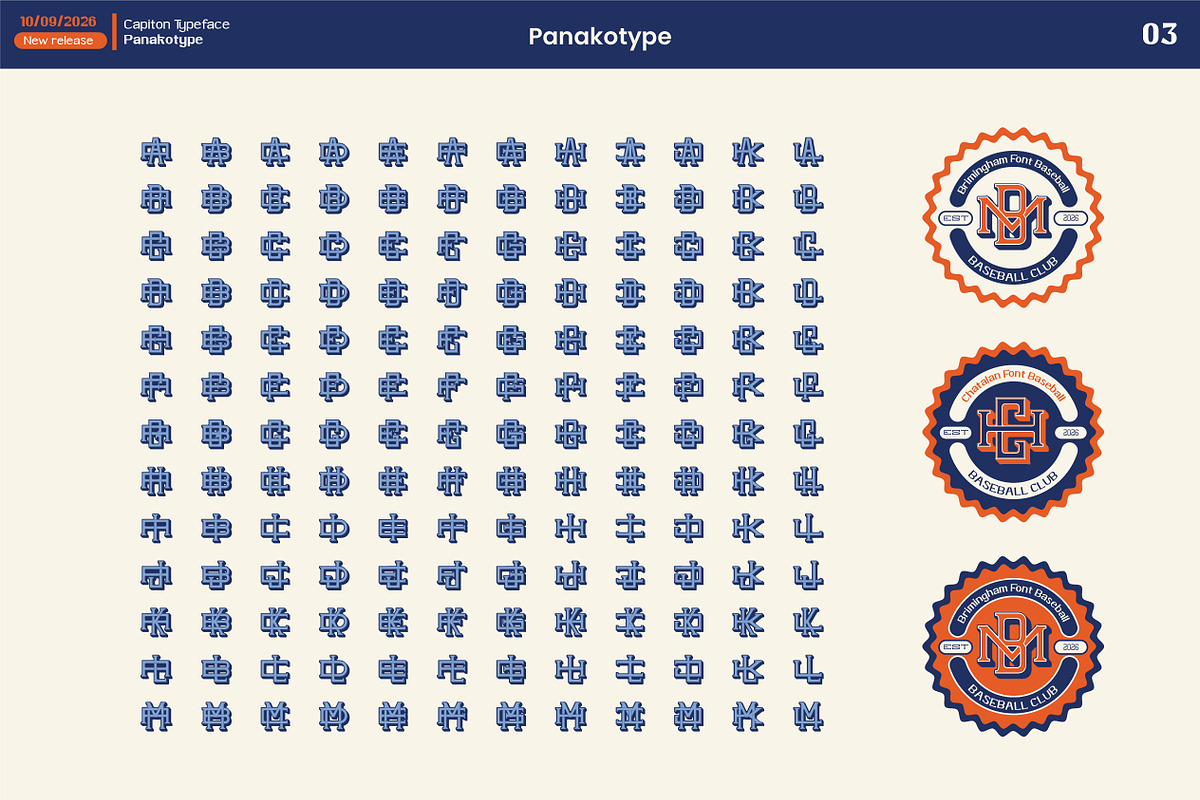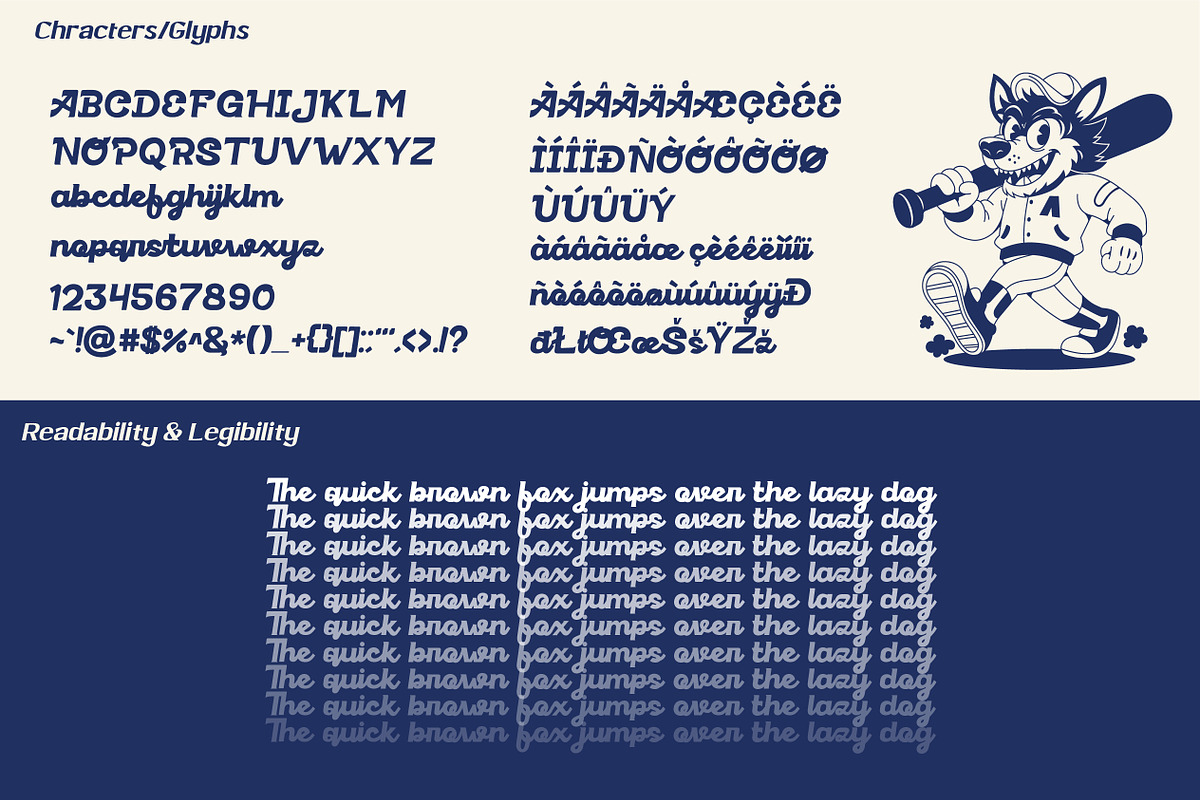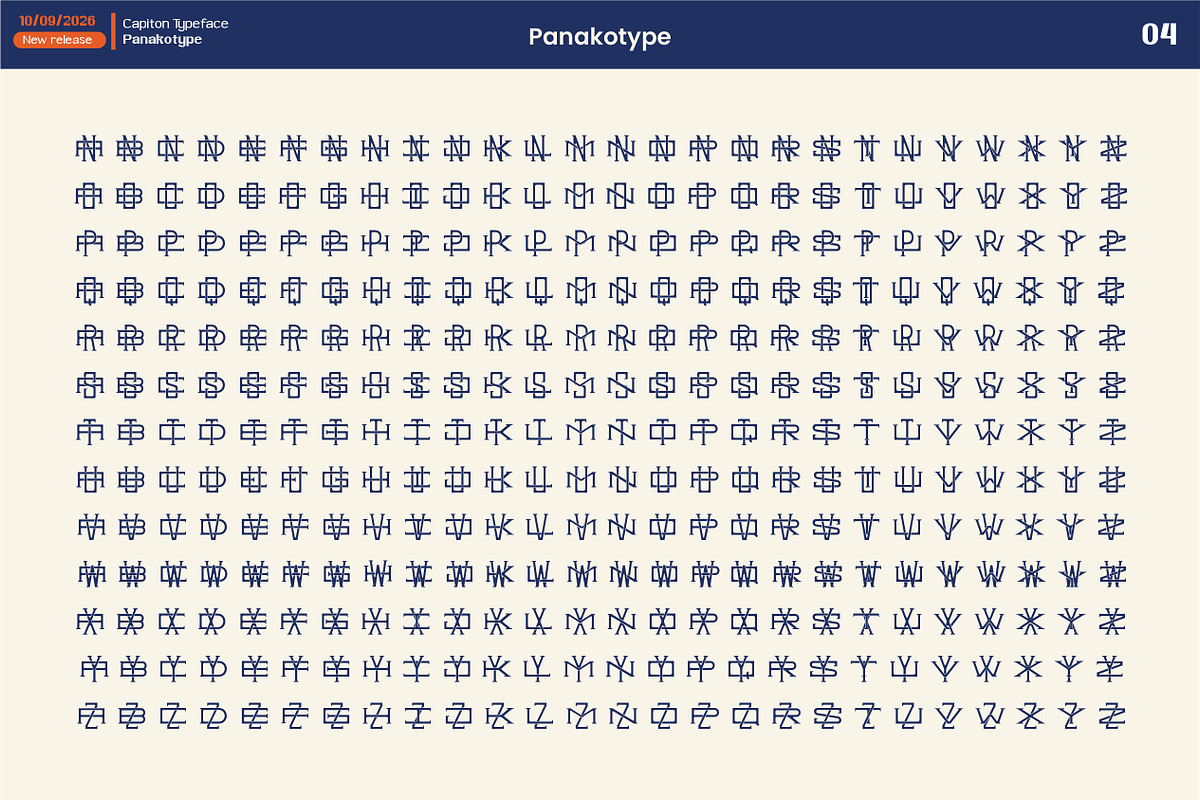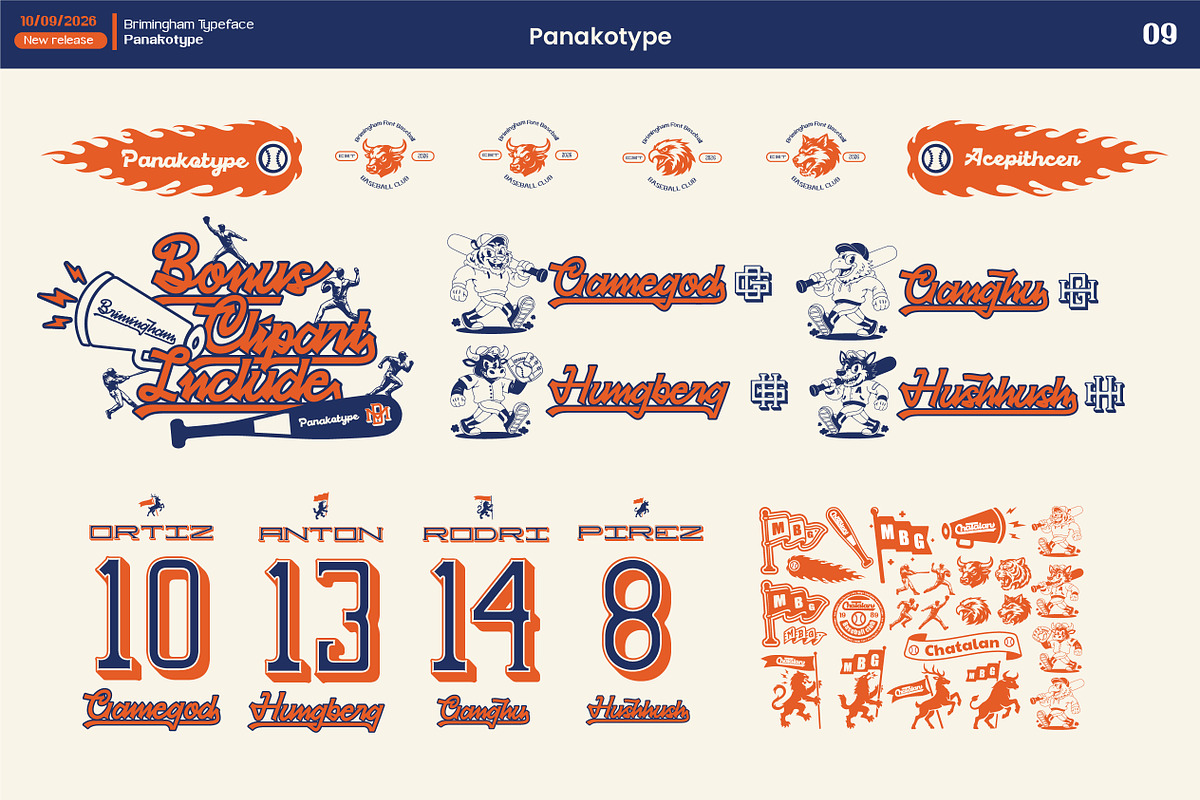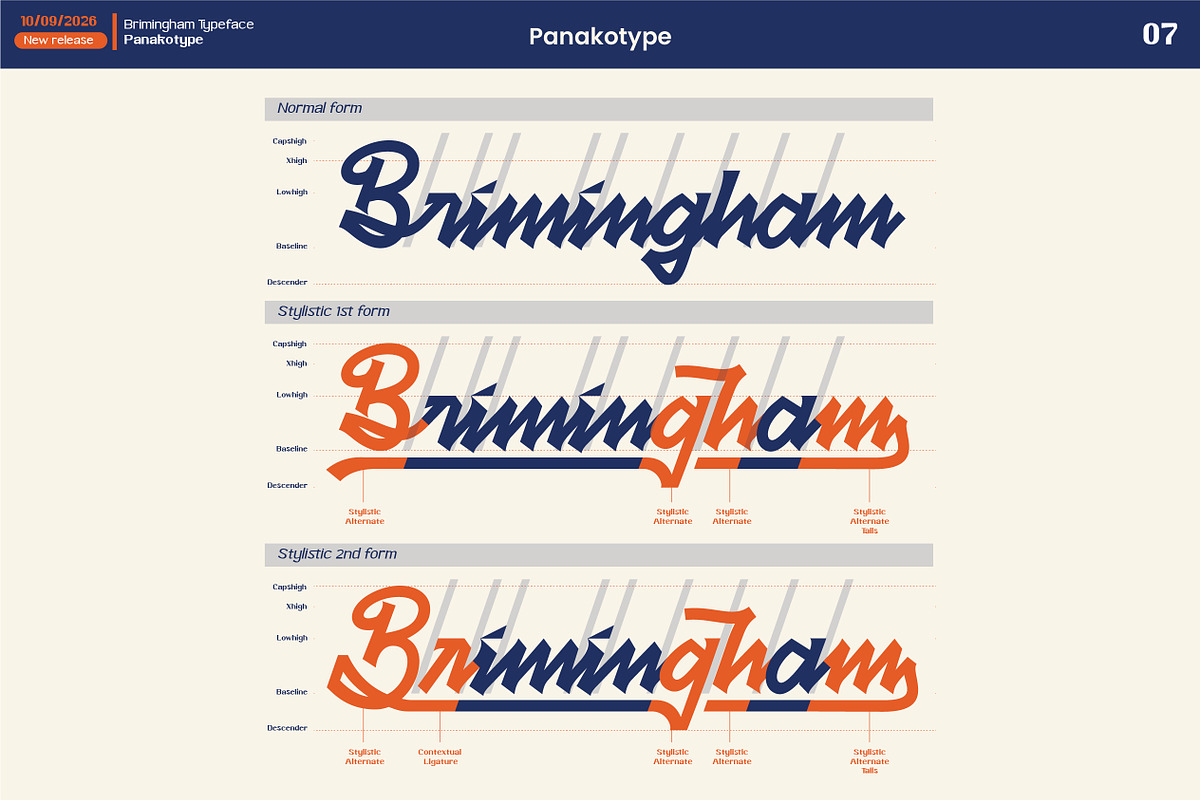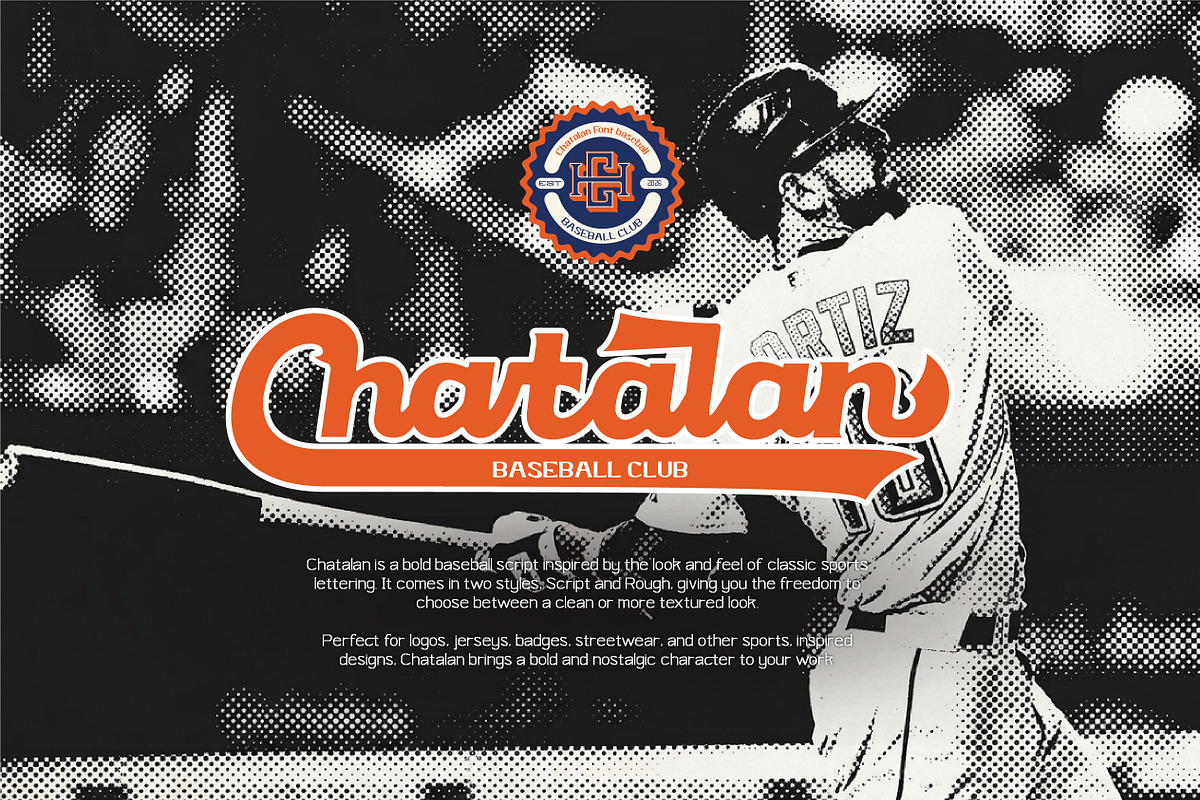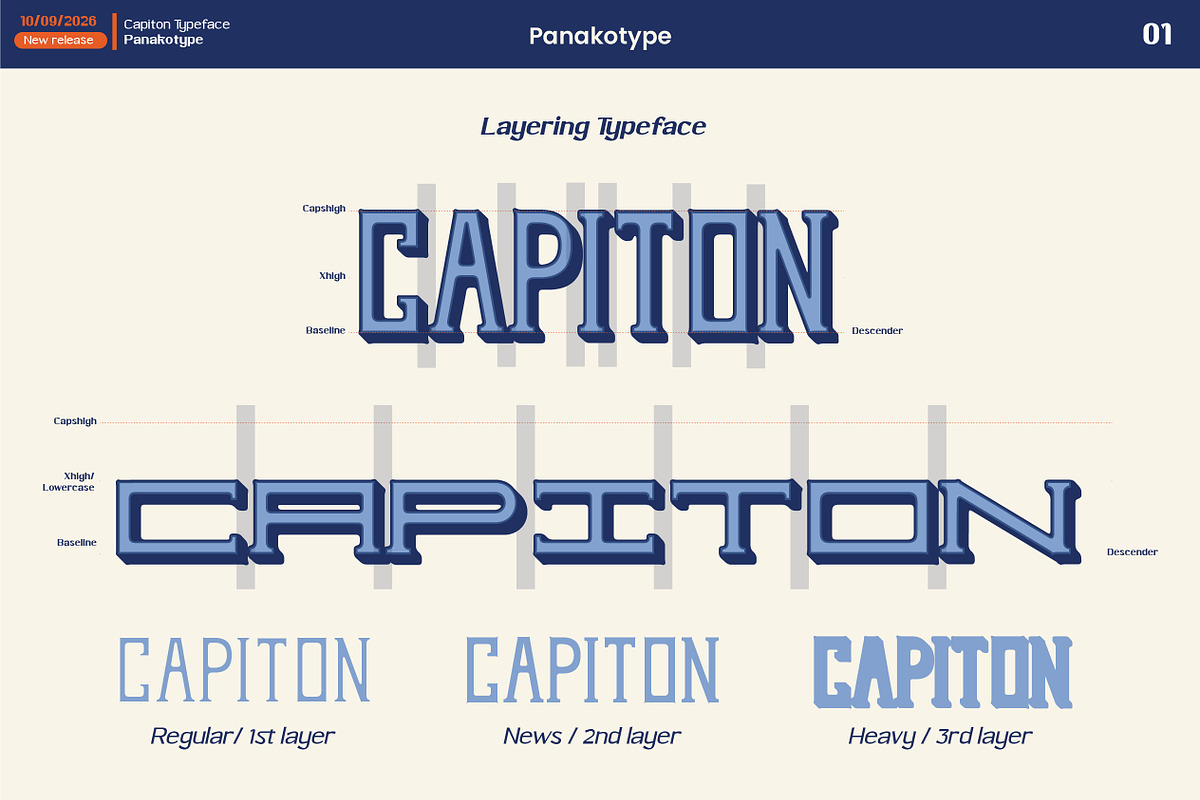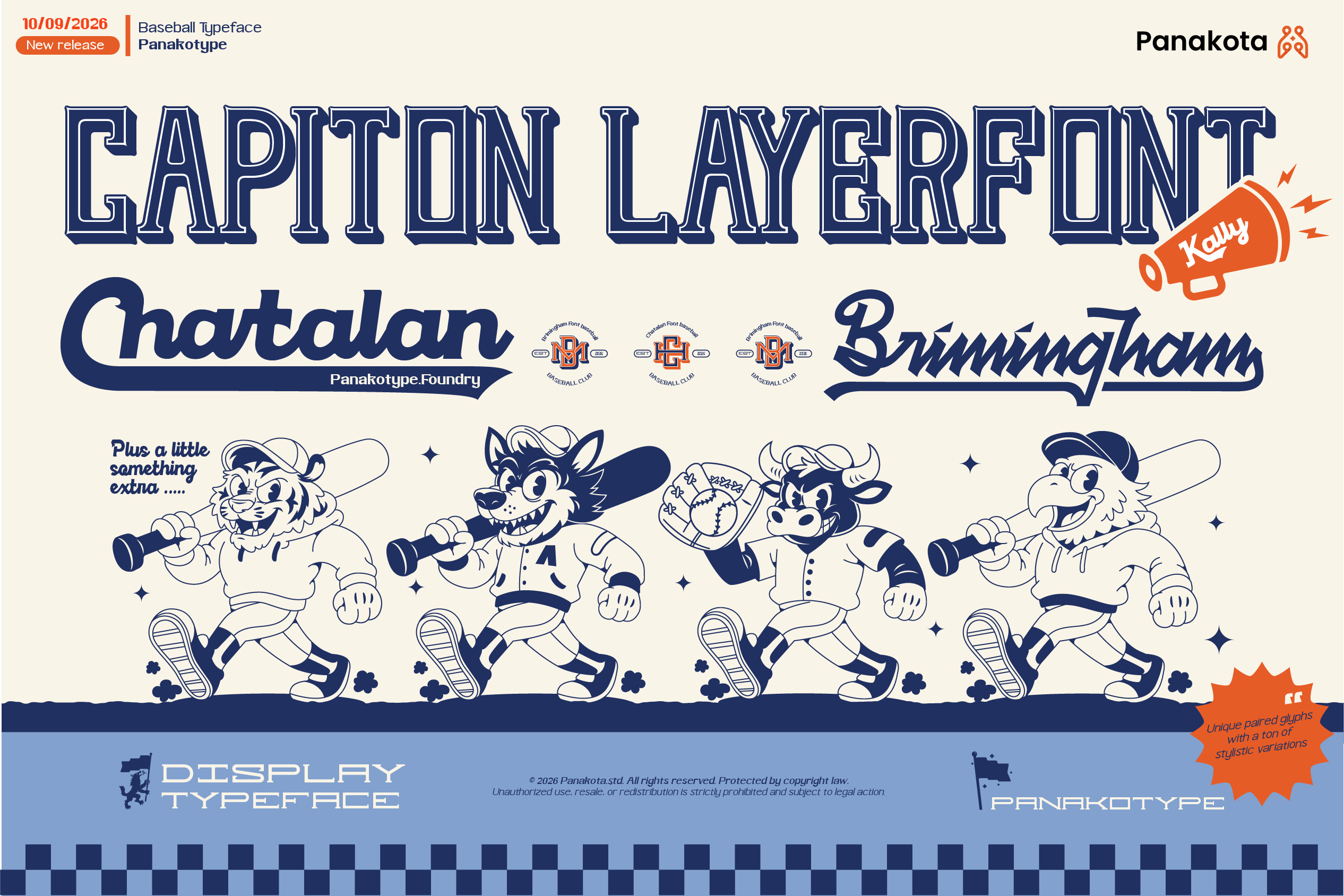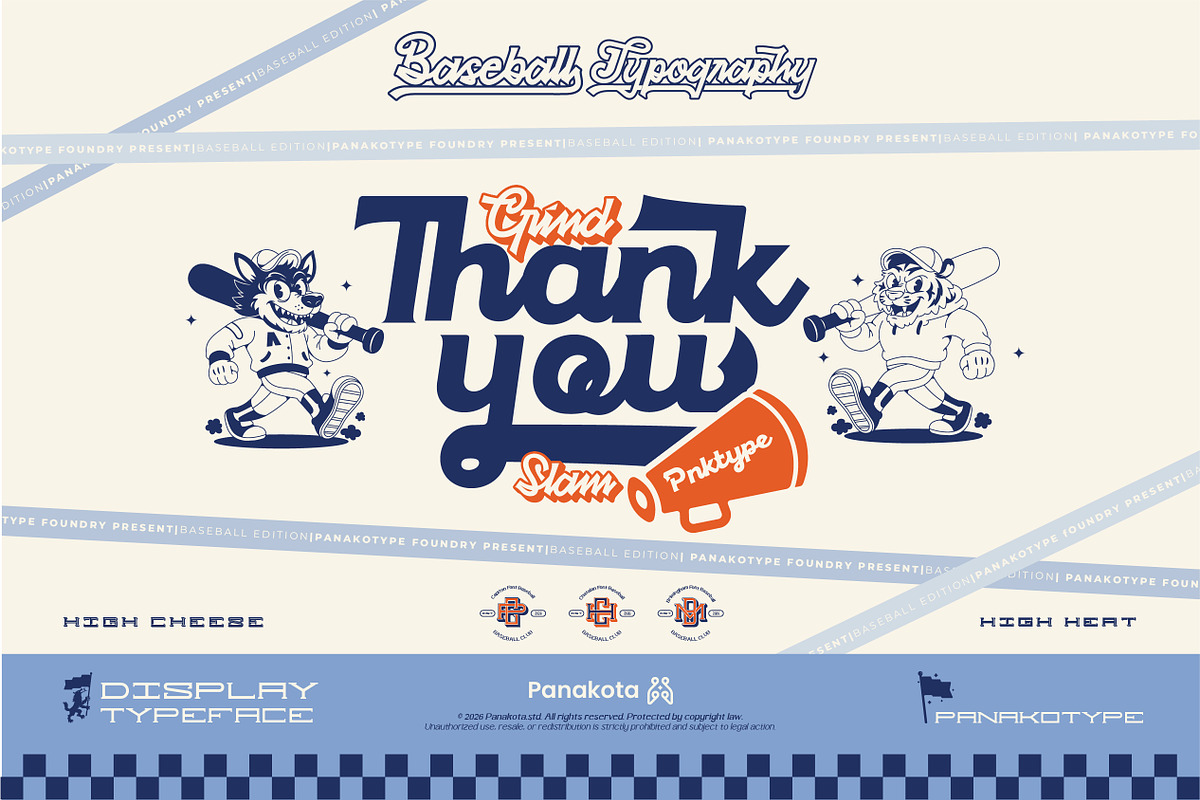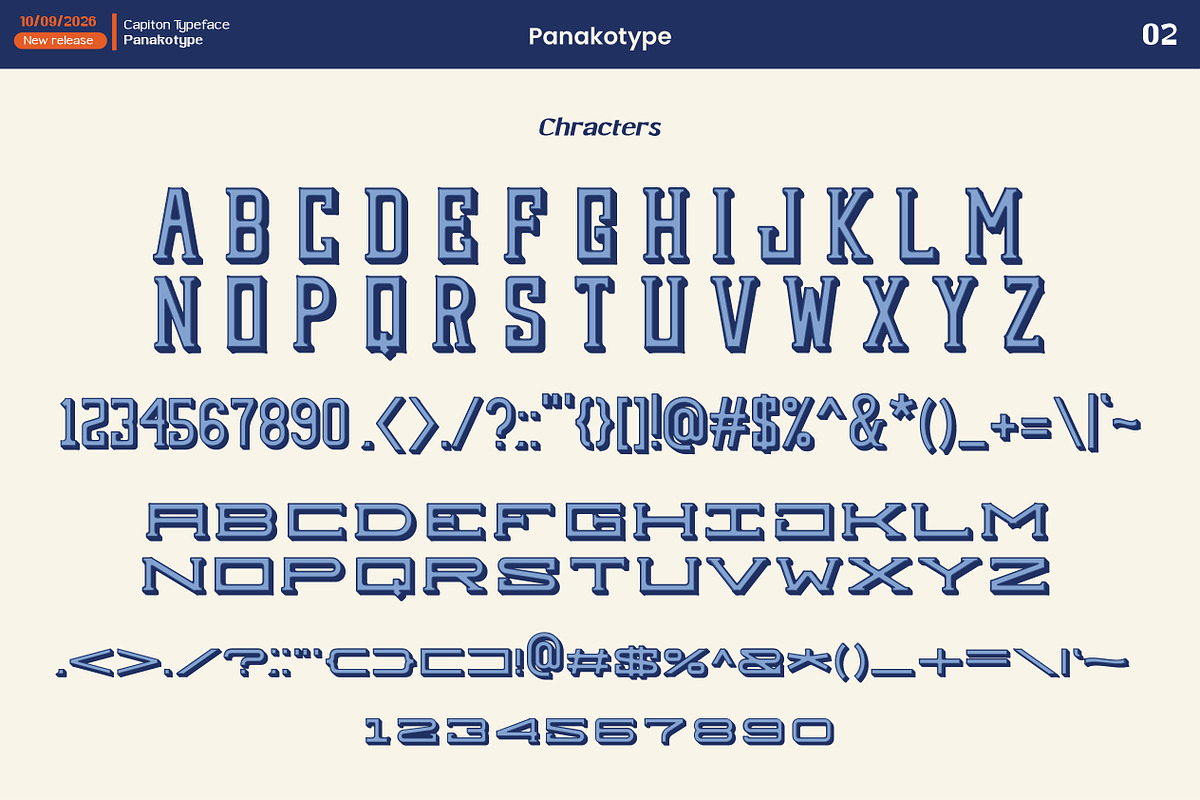
Bassball & Varsity fonts
This typeface collection consists of three different styles, each with its own unique look and personality. Even though they are different, all three are connected through the same overall theme: a playful design inspired by baseball.
They are designed to work together as one collection and can help create a playful, energetic, and expressive brand identity. The baseball influence is a big part of the concept, but these fonts are not made only for baseball-related projects.
You can also use them for logo design, packaging, apparel, branding, and other identity projects. If you are looking for something playful, bold, and full of character, these fonts can be a great choice for your project.
Capiton, Chatalan, and Brimingham each have their own personality and characteristics.
Capiton comes with its distinctive initial mark feature, available through OpenType. Chatalan and Brimingham have stronger and more expressive characters, giving you different options to explore and develop your visual ideas.
This collection is designed to give you more freedom to experiment and create something fresh in a simple and practical way.
This collection includes:
Font Layer feature in Capiton
Rough Texture feature in Chatalan Rough
Clipart elements in Brimingham
OpenType Features:
More than 16 Stylistic Alternates
Stylistic Alternate Discretionary Ligatures
Standard Ligatures
Discretionary Ligatures
Tail Swashes
Underline Tails